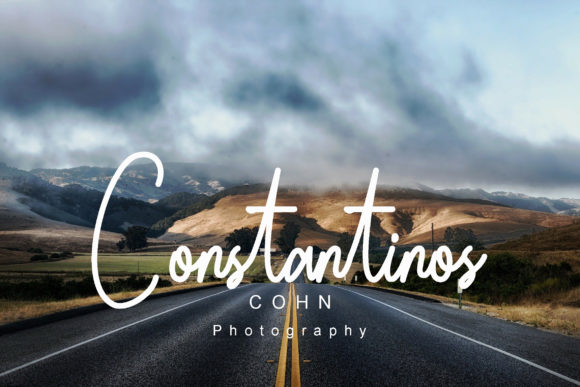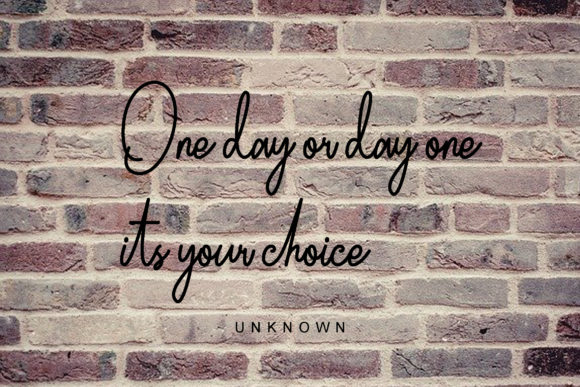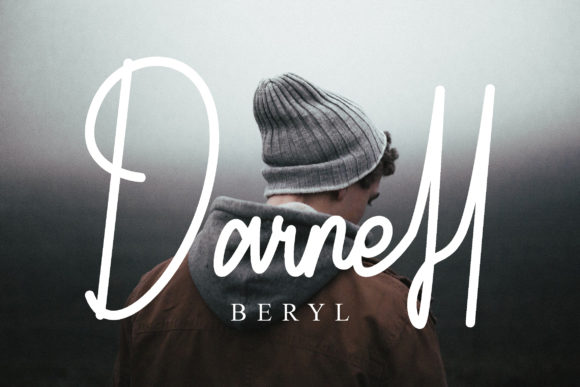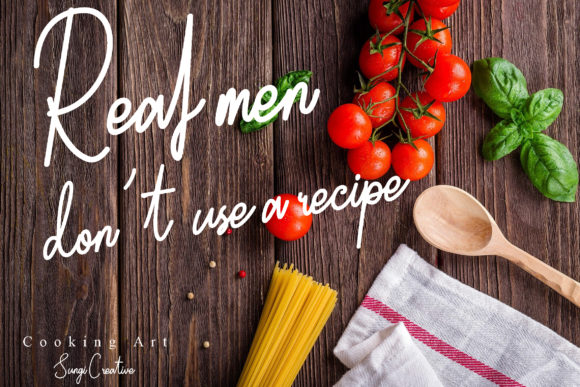
Olimpo Font
About Olimpo Font
Olimpo is a signature monoline script. Whether you’re looking for fonts for Instagram or calligraphy scripts for DIY projects, Olimpo will turn any creative idea into a true piece of art!